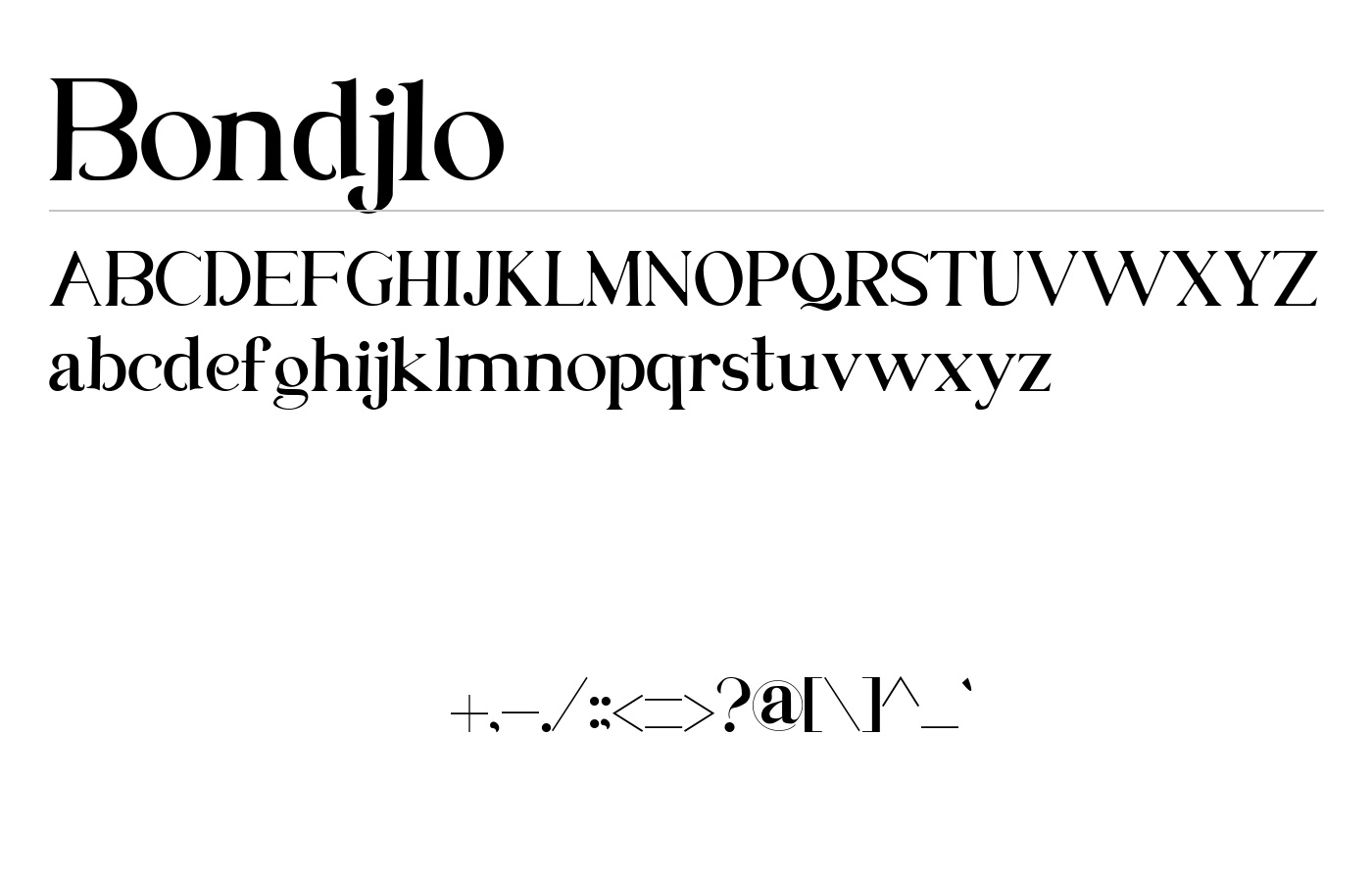
Bondjlo is an elegant serif font that blends classic sophistication with modern flair, characterized by its high contrast between thick and thin strokes and distinctive sharp terminals. Its moderately condensed width and medium x-height create a refined, timeless appearance that suits editorial design, luxury branding, and stylish headlines. This font works beautifully where a sense of elegance and uniqueness is desired, making it ideal for upscale magazines, fashion logos, and premium packaging.
Bondjlo Font